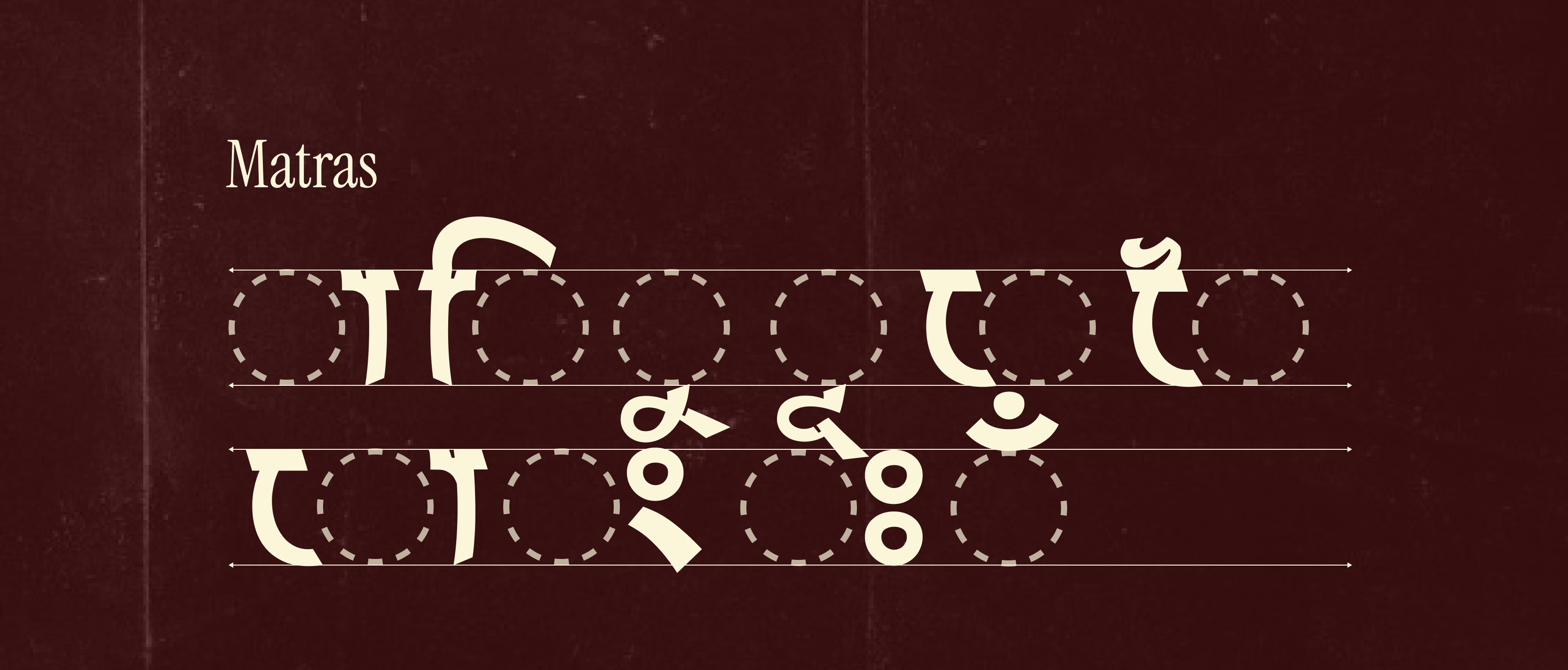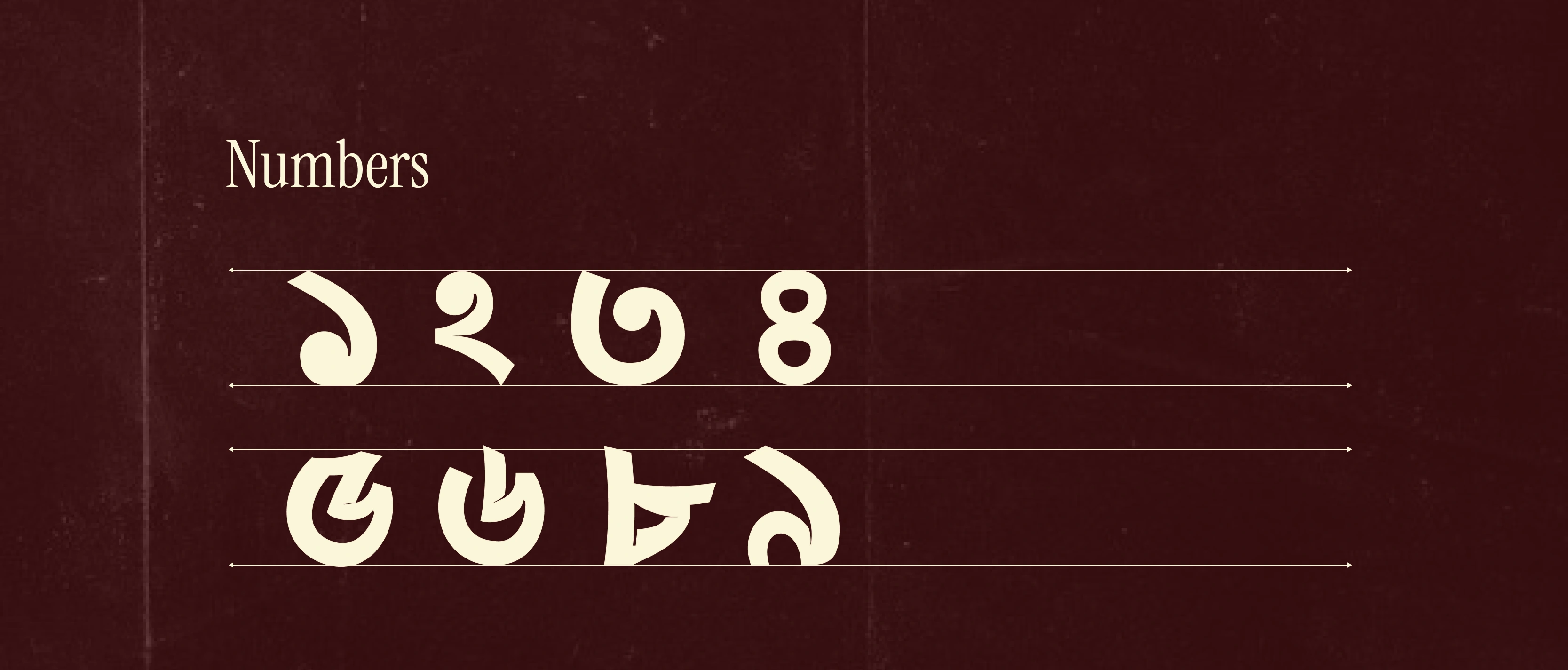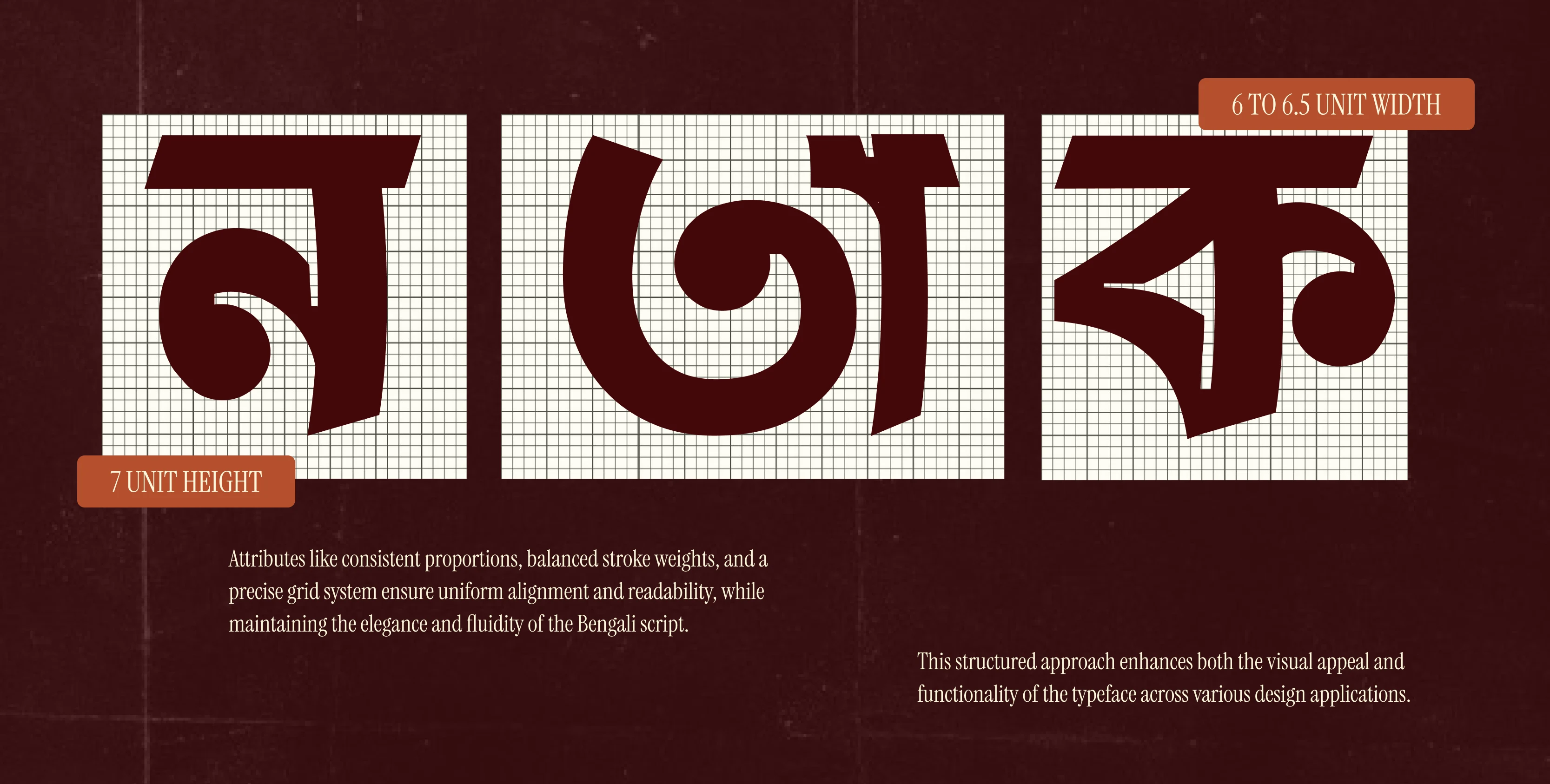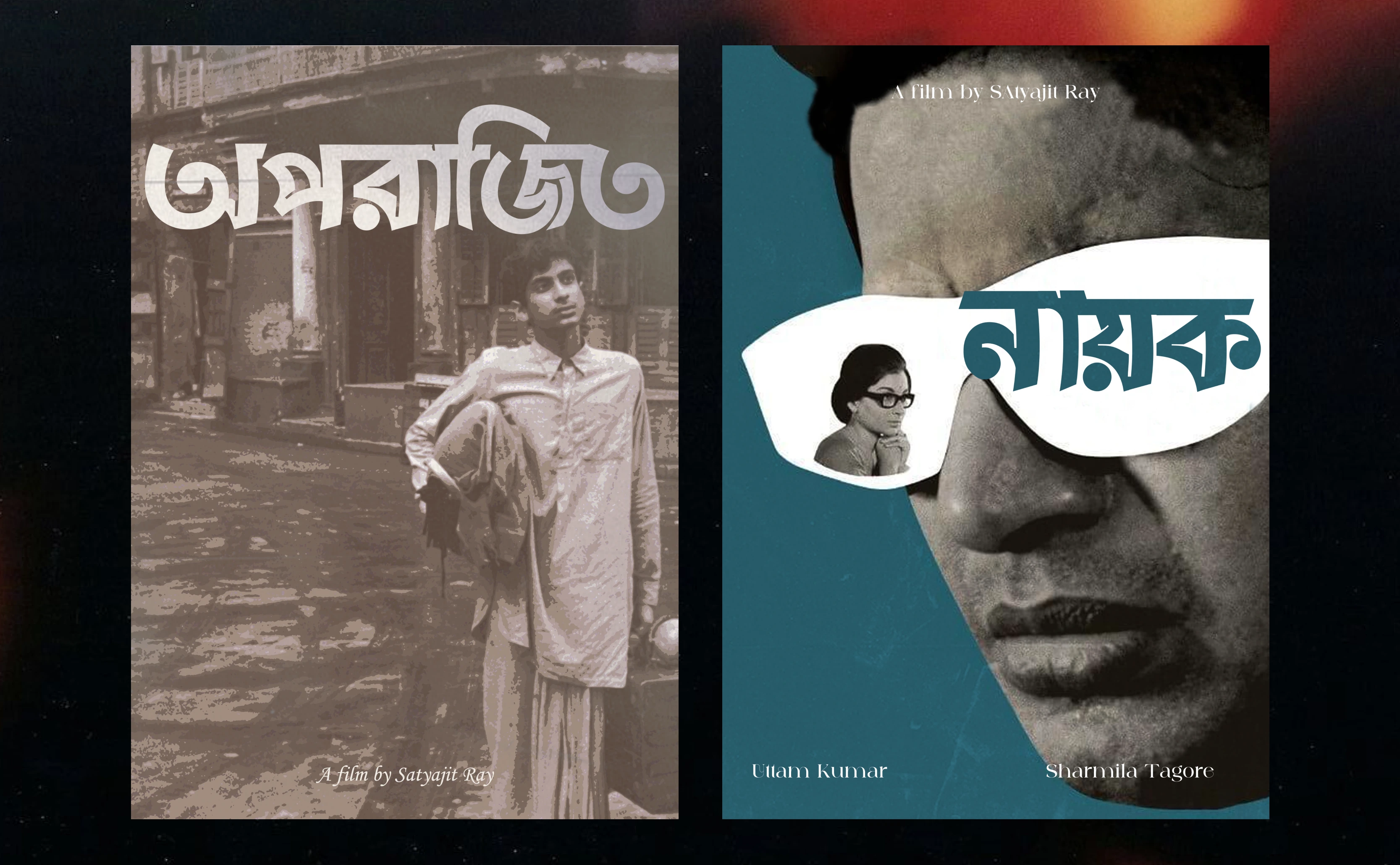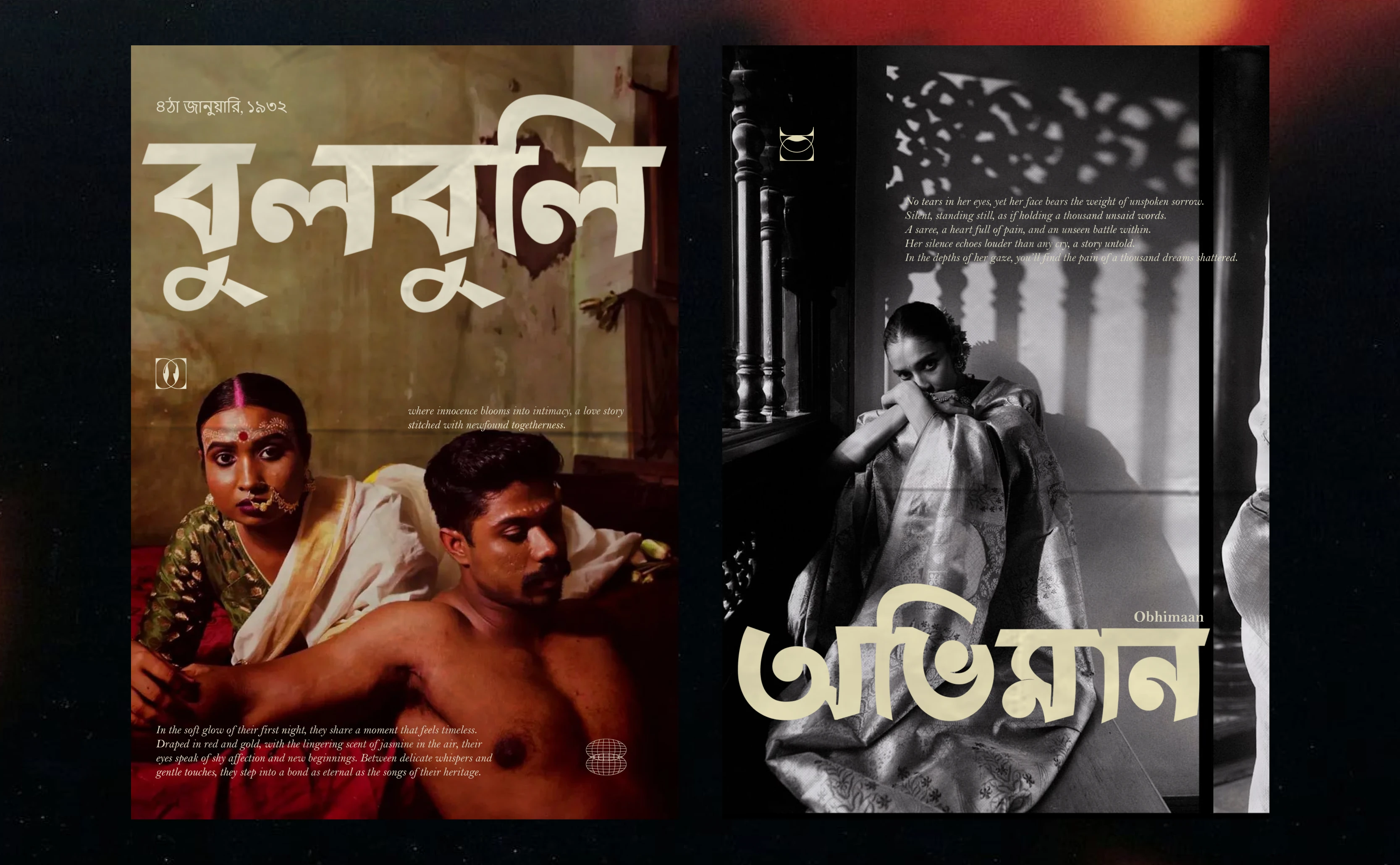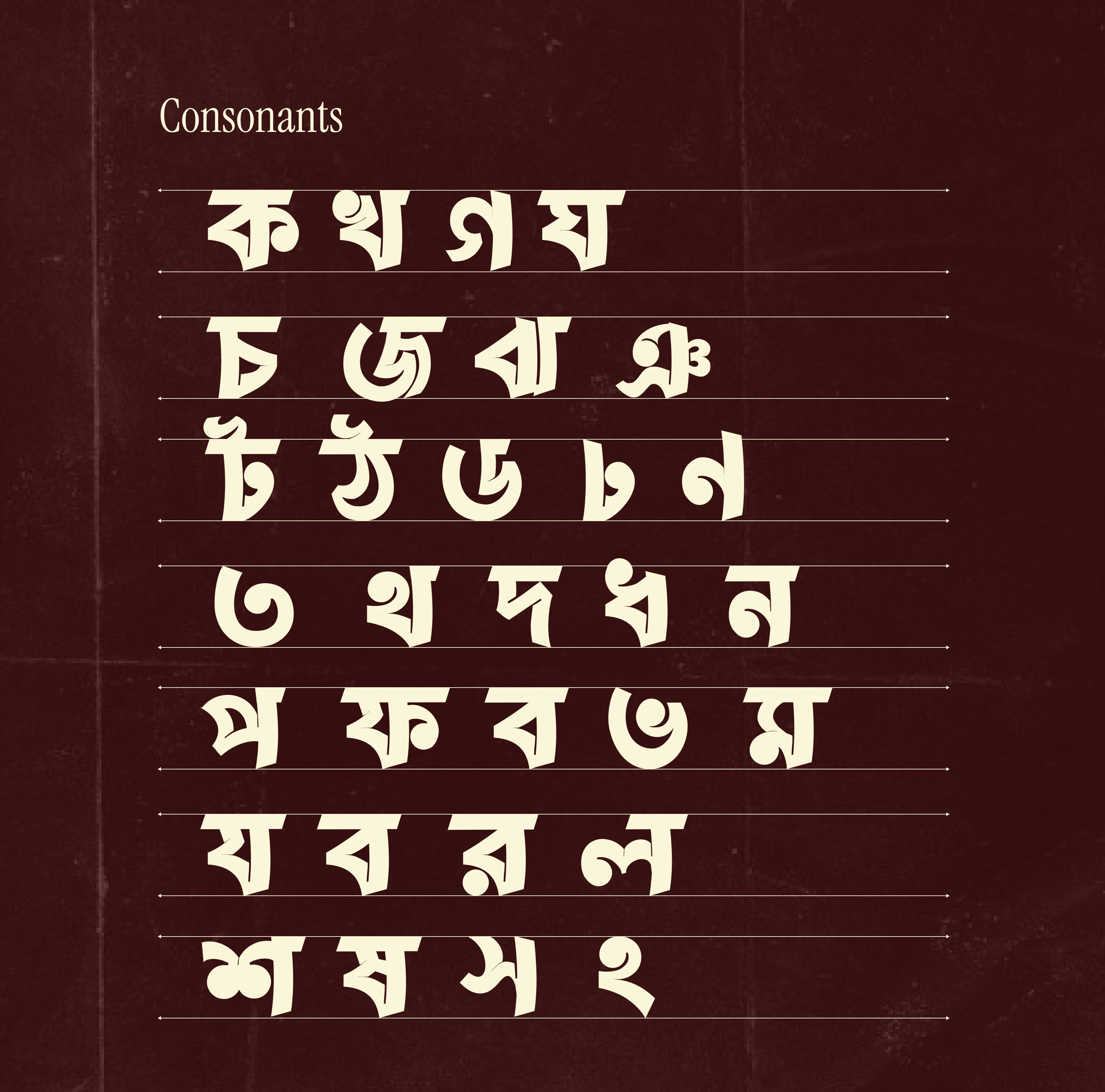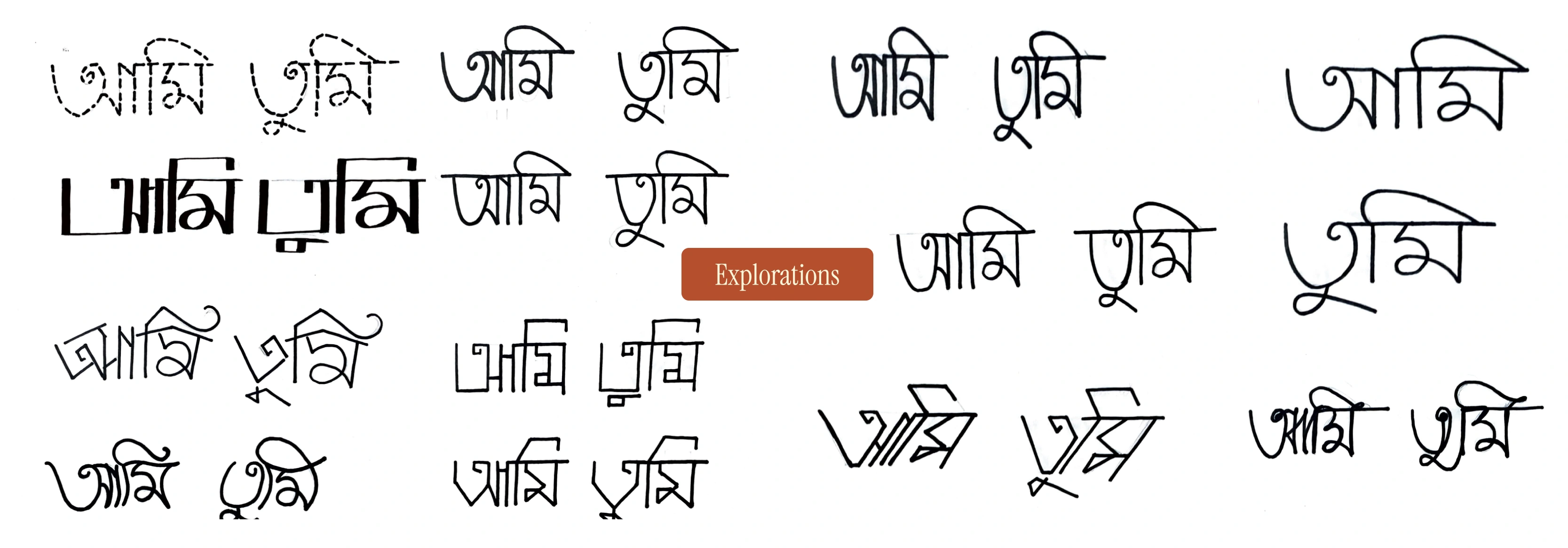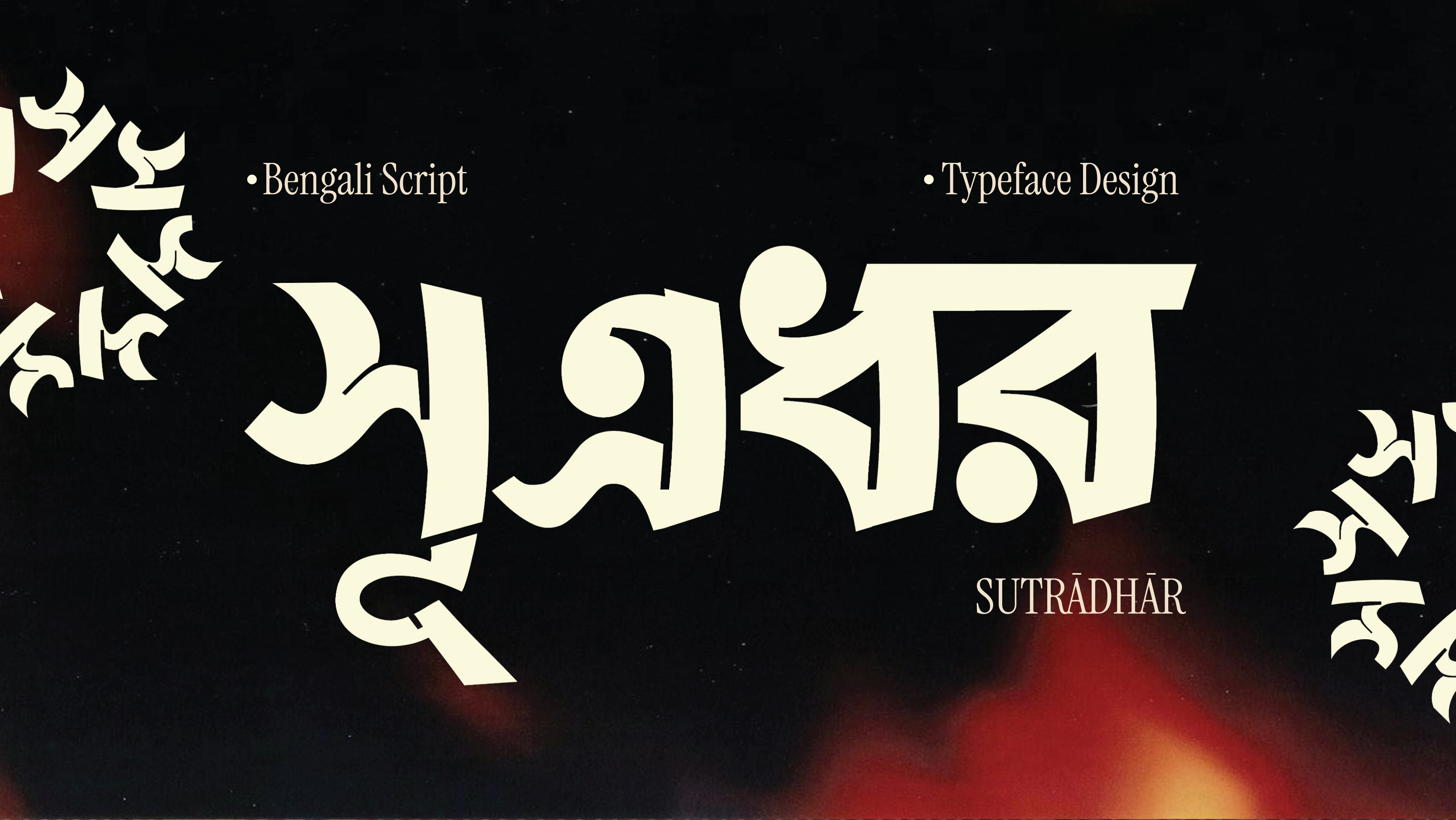
Meet Sutradhar—a bold Bengali typeface that fuses traditional calligraphy with modern design. Inspired by regional embroidery, its unique ink traps bring a fre…
Bold Designs with Storytelling Magic